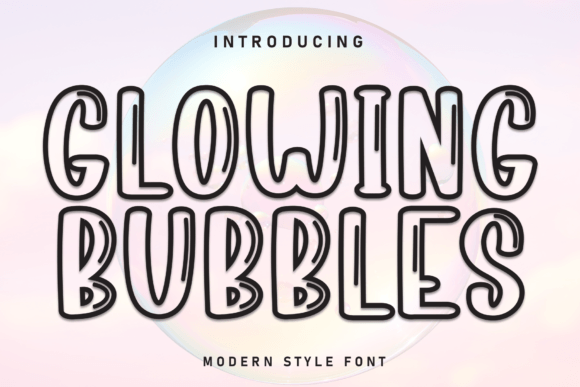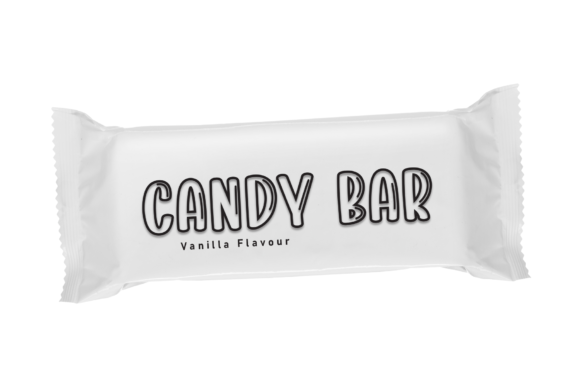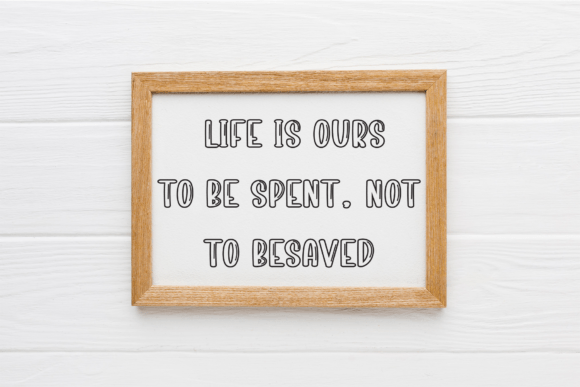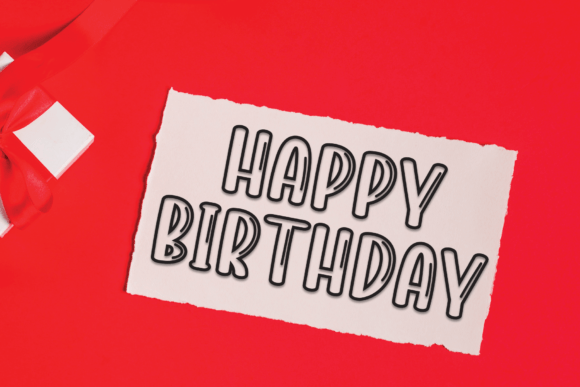
Glowing Bubbles Font
About the Glowing Bubbles Font
Presenting Glowing Bubbles Font, a unique and stylish typeface that will make your work stand out. Glowing Bubbles is a modern display font that features bright, bubble-like letters. It’s eye-catching and fun, perfect for making text stand out in posters, headlines, and playful designs. The font has a vibrant and lively appearance, ideal for adding a touch of excitement to your projects.
Glowing Bubbles excels in headlines, short slogans, and playful branding projects where its energetic personality shines. It’s also well-suited for eye-catching packaging design or short, impactful posters. However, its unique letterforms and spacing aren’t ideal for body text or long paragraphs, and using it in UI could negatively impact readability.
Its playful, yet modern feel pairs well with clean sans-serif fonts like Open Sans or Lato for a balanced contrast. For a more sophisticated look, consider pairing it with a classic serif like Garamond or a geometric sans-serif like Montserrat. Avoid pairing it with other highly stylized or decorative fonts to prevent visual overload.
Glowing Bubbles’ overall personality is undeniably fun and youthful, making it perfect for brands targeting a younger demographic or projects that require a vibrant and memorable aesthetic.
Glowing Bubbles Font Usage Examples
Glowing Bubbles Font Example